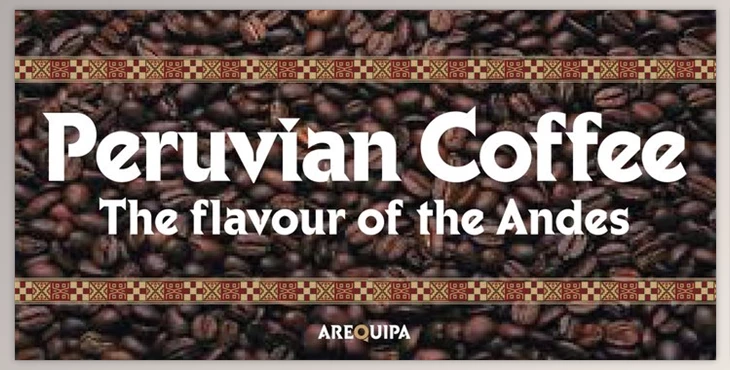
Arequipa is A Latin font that has serifs typically in the upper left. The style is inspired by Aztec and Inca designs.
Bold is a great font for Headline. Bold weight is excellent when it comes to Headline as well as the lightweights perform well in the text that is limited. The geometric form of serifs, ij dots the full-point, comma, and cap Q make the font unique and distinct appearance.